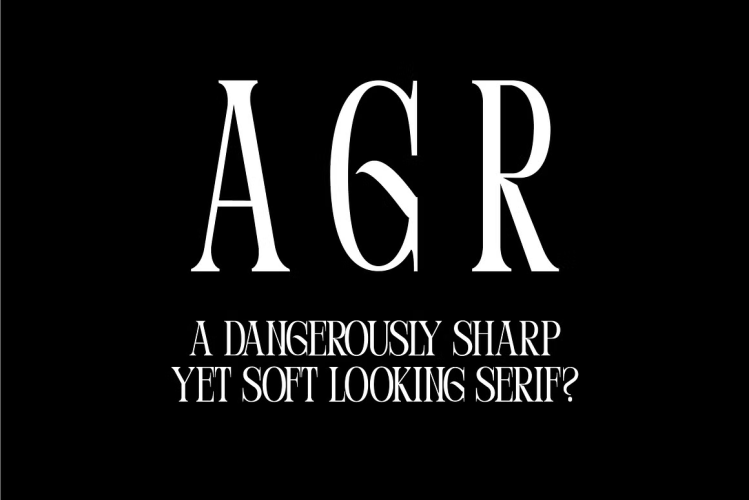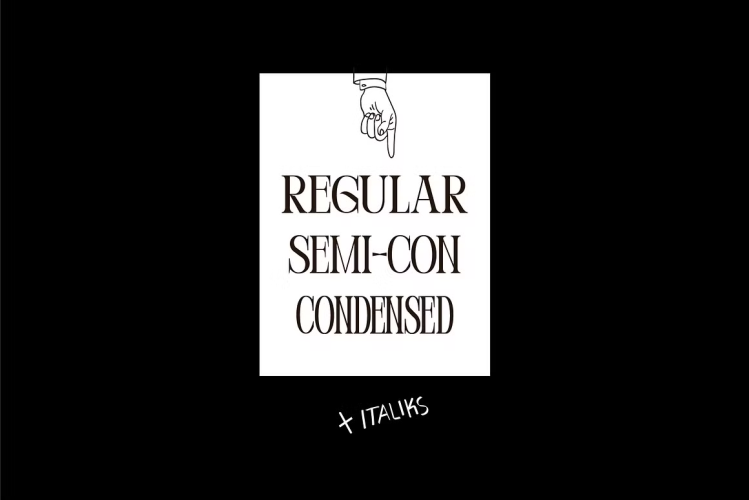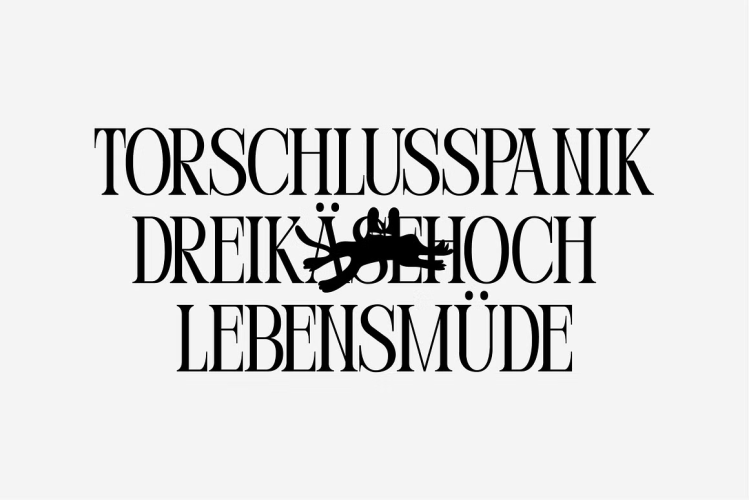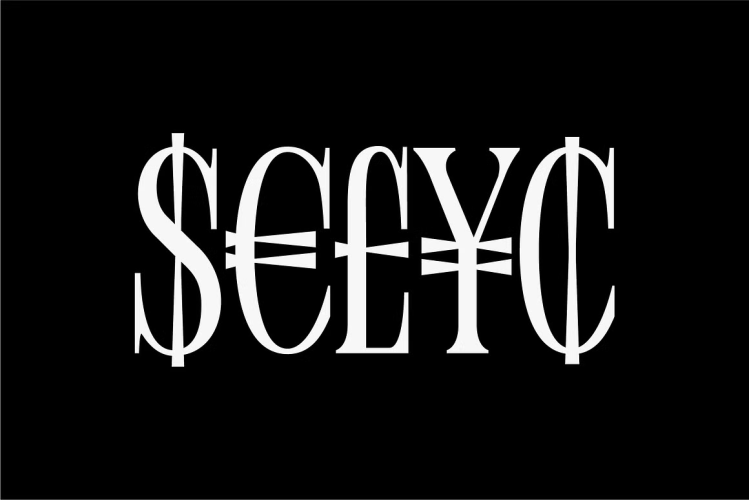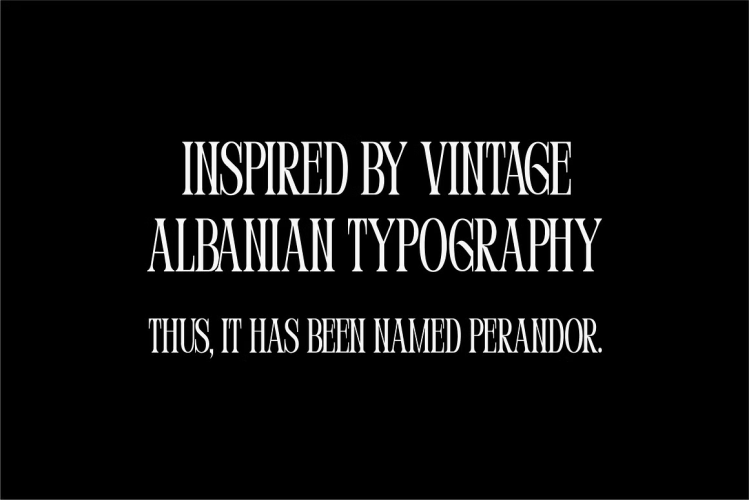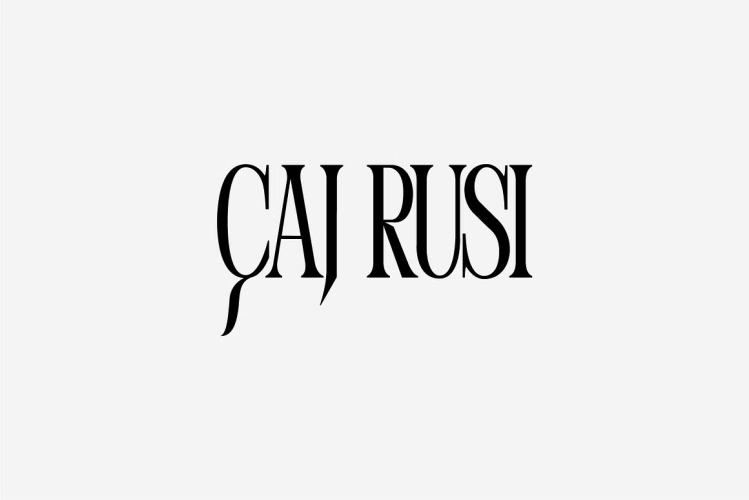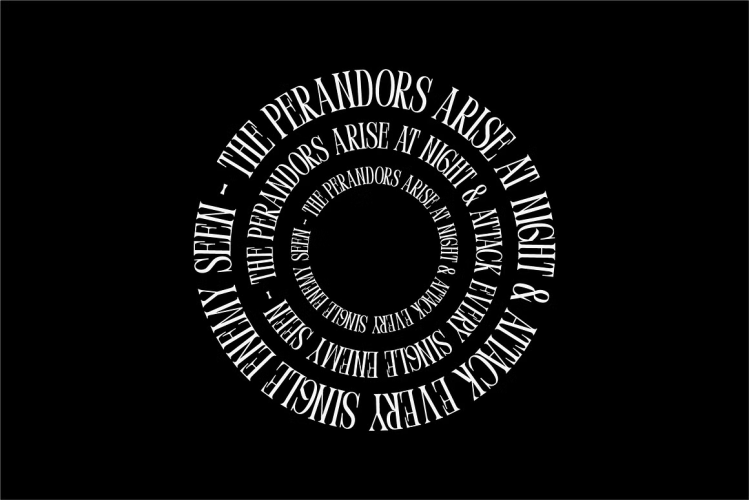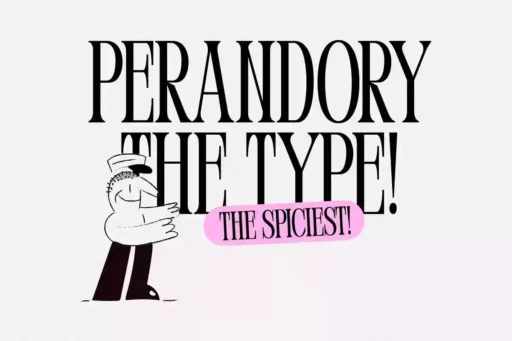
Perandory Font
Perandory is a serif font designed by Kulture Type that is identified with intriguing contrasting contours. This font is based on vintage Albanian typography and lettering and combines classic charm with modern sensibility. Perandory, with the un’s conventional serif style and sharp turns, represents the meeting point between past and future.
It has a fascinating design, with the serif having a unique touch and characterized by some angles that remind of old aesthetics. Yet, it also has modern features that give it a feeling of today. The refer-to refers to a juxtaposition of old and new, presented in Perandory as a hybrid typeface that unites tradition and novelty.
Although derived from the past, Perandory keeps its people in today’s design world with its unique angle and adaptability. Available in different styles – from Regular to Condensed – it is versatile for any design.
Perandory is case-sensitive and only available in uppercase, which is not standard for some applications. Yet, strikingly ubiquitous and unique, it is a treasure for those who want to say something different but still with the spirit of vintage typography.
It can boast of its uniqueness and vintage past, but that does not equal being old-fashioned. The font also incorporates slightly modern features that make it appealing and always relevant in the world of design. It has the remarkable ability to shift seamlessly from a retro look to the latest editorial layouts.
Where Perandory Font works best
Perandory Font gives long-form text a classic, trustworthy rhythm — ideal for magazine spreads, annual reports and book interiors.
Pair Perandory Font with generous letter-spacing for wordmarks in fashion, hospitality, wine and jewellery branding.
Use Perandory Font for slide titles in Keynote, PowerPoint or Google Slides to add authority without looking dated.